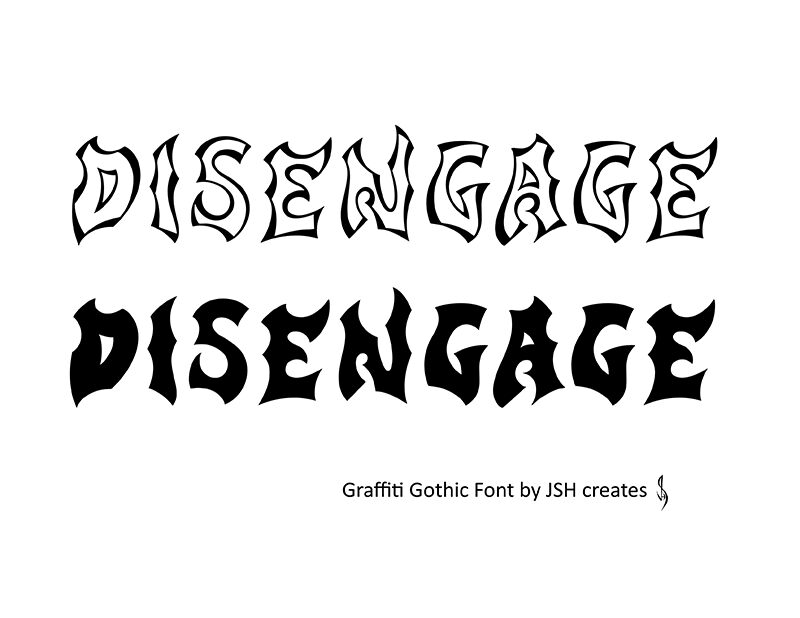
Disengage
Disengage font, designed by JSH creates, is a bold modern gothic typeface with an aggressive and jagged design. It reveals thick sharp caps decorated with ornamental endings and playful internal designs creating an overwhelming high contrast presence. Each letter has a mysterious feel to it which makes overall projects of all types stand out from the crowd.
Good use cases include band branding, movie posters or artworks, title covers for books and magazines, music covers, futuristic videos or movies, Halloween materials like decorations and cards, advertisements such as billboards and flyers, websites/blogs headers in addition to images on social media that need to be noticed whenever viewed.